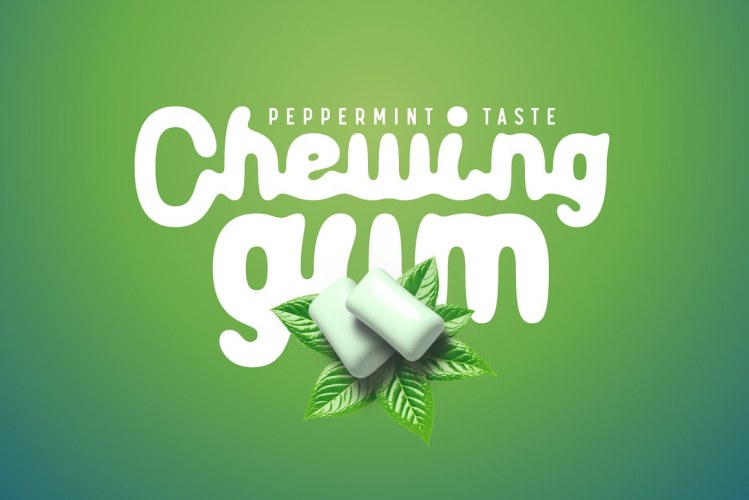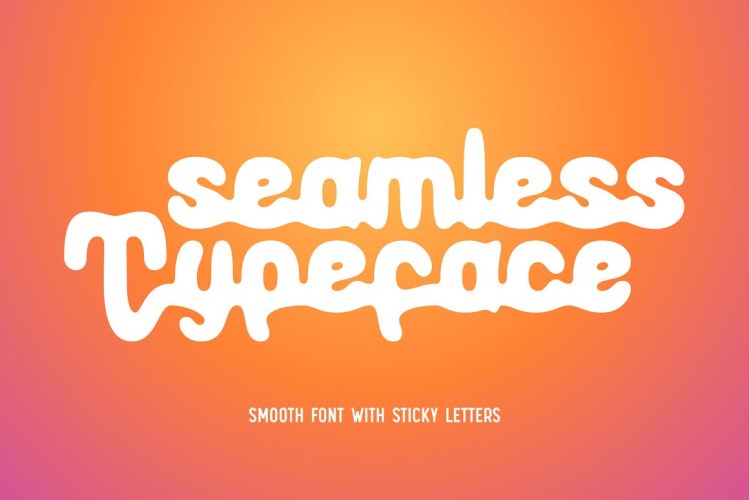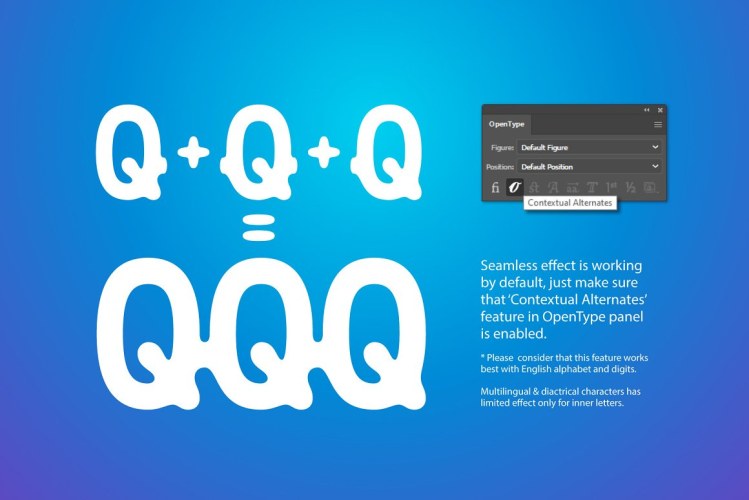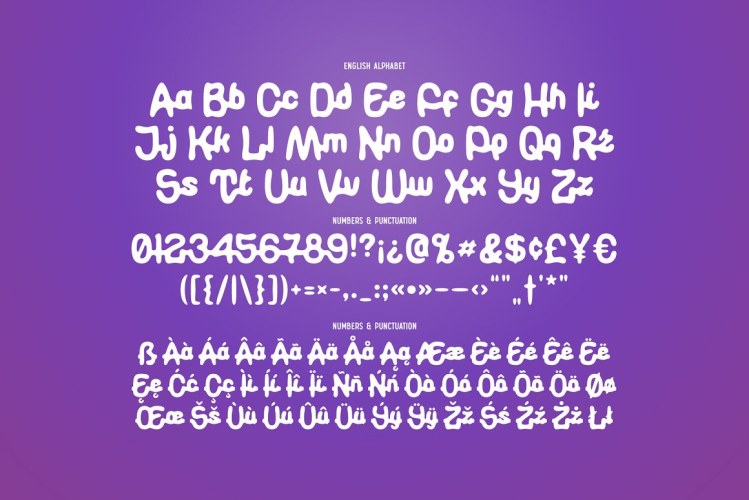
Qimzy – Smooth Sticky Font
Hello! Introducing a decorative font — Qimzy. It’s a smooth shape bold typeface with seamless sticky effect. This font includes lots of multilingual characters (check out a screenshot with available letters and signs).
Qimzy – Smooth Sticky Font is a Display Fonts font that brings a professional and versatile look to your projects. Hello! Introducing a decorative font — Qimzy.